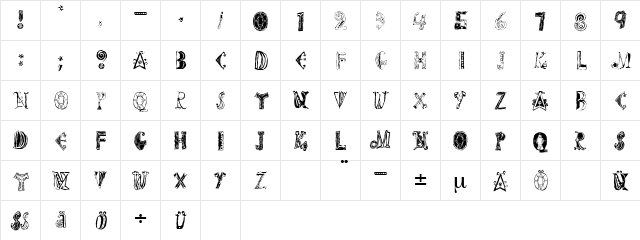
SaltoTwo Regular
Design Context for SaltoTwo Typeface
SaltoTwo is a composed and adaptable typeface that performs quietly and consistently across a wide range of design contexts.